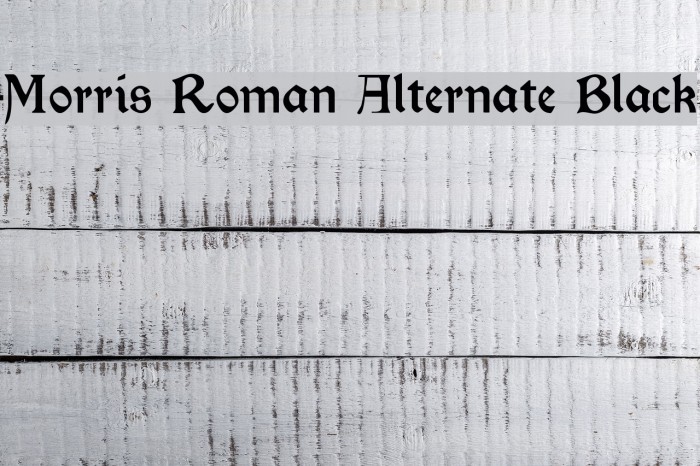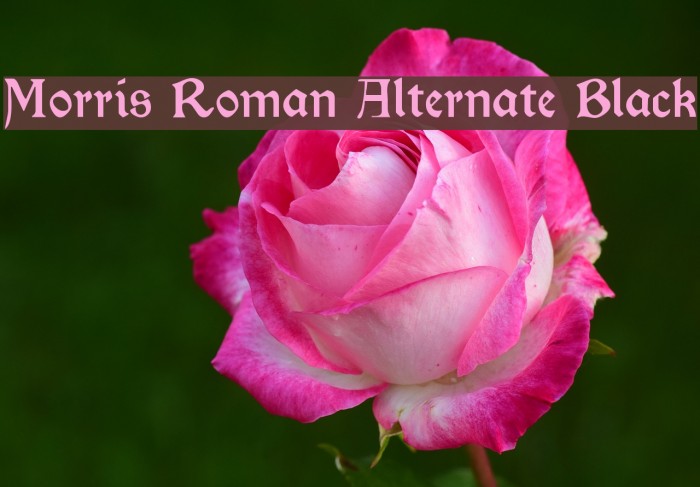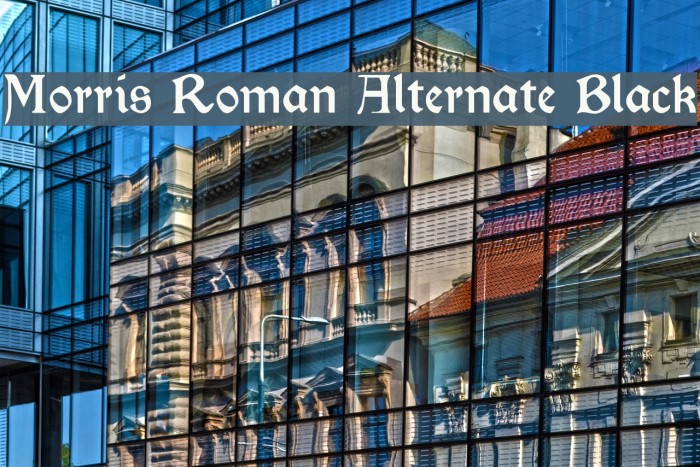
Morris Roman Alternate Black Font
This font features a bold and striking design with a medieval flair, characterized by its sharp, angular serifs and unique letterforms. The uppercase letters exhibit a strong presence with intricate details, while the lowercase letters maintain a consistent style that complements the overall aesthetic. The numerals are distinct and easily readable, adding to the font's versatility. Special characters are designed with the same attention to detail, making them suitable for various applications. The font's boldness and decorative elements make it ideal for projects that require a touch of elegance and historical charm.
A bold, medieval-inspired font with sharp serifs and intricate details.
- Proposed Projects: Ideal for historical-themed designs, book covers, posters, and branding that requires a classic and bold appearance.
- Overall Style: Vintage
- Use Case: Headlines, Logos, Decorative text